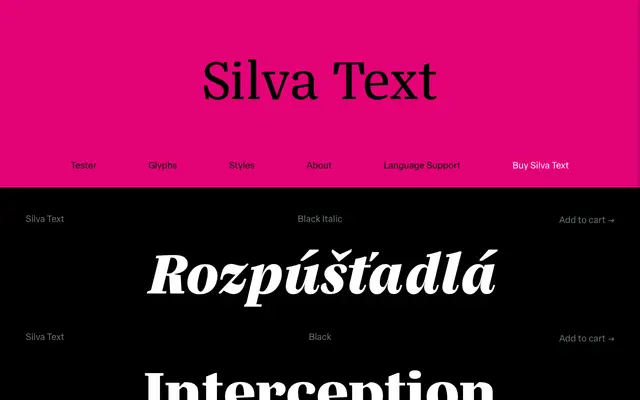
Silva Text
Blackletra · Daniel Sabino · 2015
A text-optimised serif by Daniel Sabino with slightly condensed proportions, generous x-height and extensive OpenType features across five weights and matching italics.
Designed for complex editorial environments, Silva Text offers ten styles from Light to Black with companion italics, built around slightly condensed proportions and robust serifs that improve reading economy on the page. OpenType features include old style and lining figures with tabular versions, fractions, small capitals, ligatures and arrows, making it well equipped for editorial systems requiring typographic hierarchy. Part of a larger superfamily alongside Silva Display, which handles the larger optical size.
Silva Text features moderated ascenders and descenders, generous x-height, robust serifs and slightly condensed proportions consistent with a transitional serif designed for extended reading in editorial contexts.